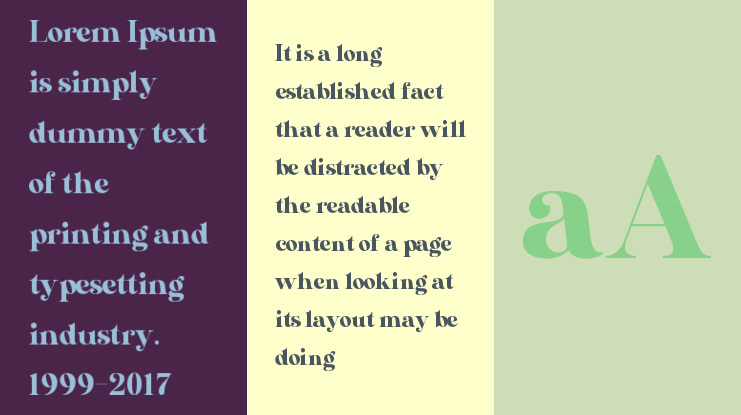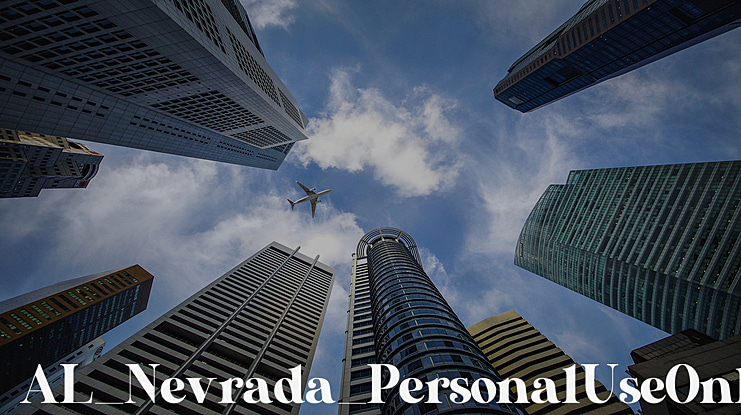
AL_Nevrada_PersonalUseOnly Font
Introducing Nevrada Font. This is a display typeface with sharp serifs. If you want to stand out then this is the font for you. It’s a chic and luxurious serif font with a contemporary feel. Use it to add a bold flavor to any design! It’s ready and Perfectly fit for your logo designs, headline, fashion projects & social media posts, event poster, brand imagery, product packaging, quotes, merchandise, etc.Please read this before using the font.You may use this version of 'Nevrada' for personal use only. If you wish to use it commercially you will need to purchase a license. Click here fontbundles.net/aluyeahstudio/362772-nevradaYou mey like our other productwww.creativefabrica.com/designer/aluyeah-studio/fontbundles.net/aluyeahstudioAny Question, you can submit your question herewww.behance.net/aluyeahstudioPLEASE FOLLOW & APPRECIATE OUR PROJECT, ILYSM